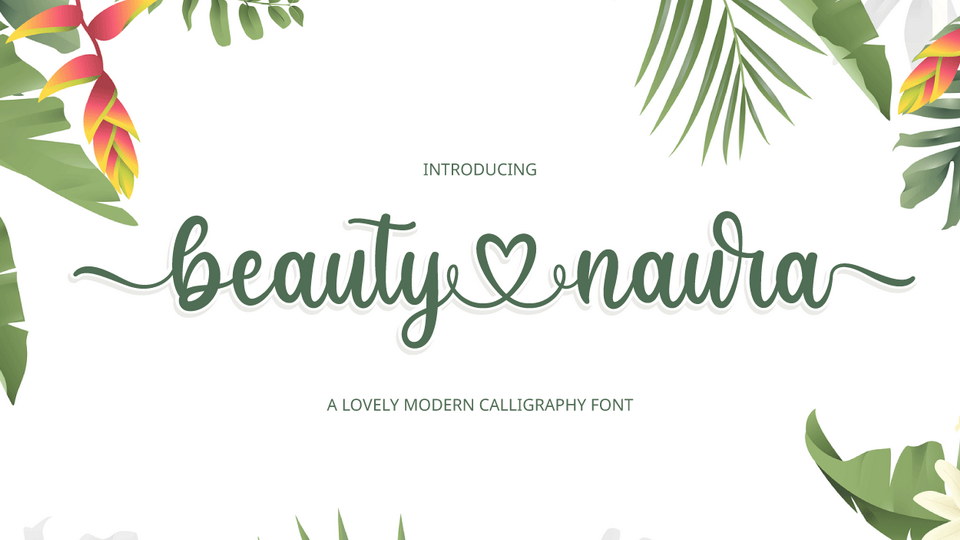
Download Beauty Naura font, a stylish and incredibly elegant script typeface. Beauty Naura font is PUA encoded which means you can access all of the glyphs and swashes with ease.